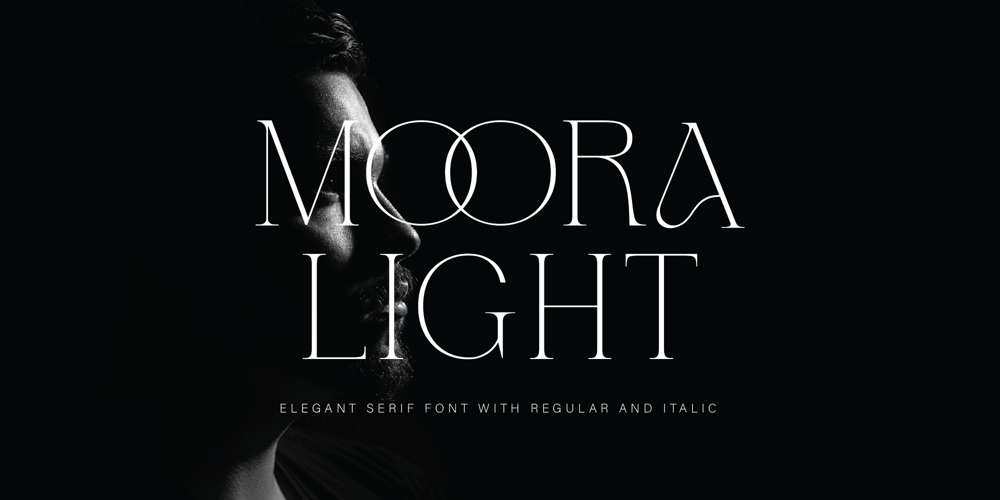
MOORA LIGHT
MOORA LIGHT font
MOORA LIGHT Font Family was designed by Ramdani Only and published by Top Type. MOORA LIGHT contains 4 styles and family package options. Moora Light feels playfully nostalgic and delivers an incredible vintage aesthetic. Use this serif font to add that special retro stylish touch to any design idea you can think of!This font is PUA encoded which means you can access all of the amazing glyphs and ligatures with ease!